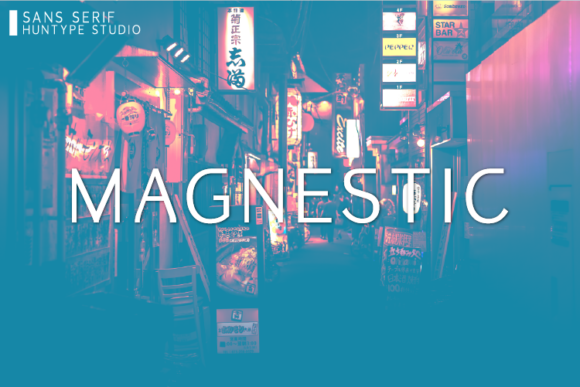
Journey through an enchanting realm of typographic elegance with Magnestic Font, the captivating sans serif creation from Huntype. This modern masterpiece captivates with its clean lines, a touch of contrast, and a versatility that seamlessly adapts to any creative canvas.
Immerse yourself in the allure of Magnestic's harmonious curves, meticulously crafted to evoke a sense of sophistication and charm. Its smooth edges and balanced proportions lend an air of timeless beauty to your designs, ensuring they radiate an aura of refinement and grace.
With Magnestic, your words become art. Its clean, legible structure ensures effortless readability, making it the perfect choice for logos, branding, and web headings. Witness how effortlessly it elevates your designs, exuding a sense of professionalism and polish that leaves a lasting impression.
Discover the transformative power of Magnestic in crafting wedding invitations that exude romance and elegance. Its delicate charm weaves a tale of love and commitment, capturing the essence of your special day in a way that resonates with hearts. As your words dance across the page in Magnestic's embrace, they become a timeless testament to the love you share.
Magnestic's versatility extends beyond the realm of print, seamlessly transitioning into the digital world. Its crisp and legible nature lends itself perfectly to web design, where it commands attention without overpowering the content. Your website will radiate a sense of sophistication and user-friendliness, inviting visitors to engage with your brand and explore the depths of your offerings.
Elevate your creative projects to new heights with Magnestic, the font that empowers you to tell captivating stories, forge lasting connections, and leave an indelible mark on the hearts and minds of your audience. Embrace the beauty of Magnestic and watch as your designs blossom into masterpieces that capture the essence of your brand and resonate deeply with your audience.